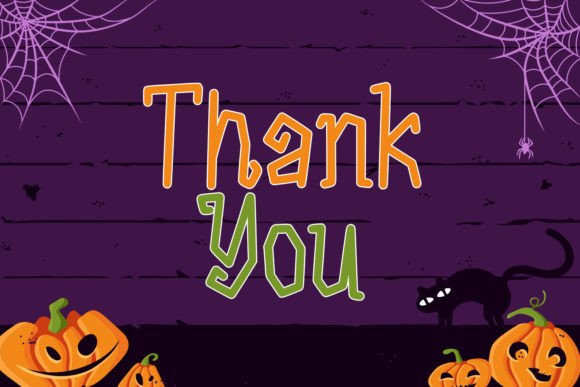
Unleash Your Spooky Creativity with Dancing Trick: A Halloween-Inspired Display Font
As the spookiest time of the year approaches, designers and crafters are on the lookout for creative elements to infuse their projects with a touch of the eerie and fantastical. If you’re looking to add a dash of Halloween magic to your cards, invitations, stickers, or posters, look no further than Dancing Trick, a captivating display font designed specifically for the season.
The Essence of Dancing Trick
Dancing Trick is more than just a font – it’s an experience. This Halloween-inspired display font is meticulously crafted to bring the essence of the spooky season to your creative projects. Its distinctive design features intricate details and an enchanting aesthetic that is sure to cast a spell on your work.
Whether you’re a professional designer working on a client’s Halloween campaign or a crafter creating spooky decorations for your home, Dancing Trick is the perfect addition to your creative toolkit. This versatile font can be used for:
• Halloween cards and invitations: Add a touch of spookiness to your greetings and invitations.
• Stickers and labels: Create eye-catching stickers and labels for your Halloween treats and decorations.
• Posters and flyers: Design attention-grabbing posters and flyers for Halloween events and parties.
• Social media graphics: Add a dash of Halloween spirit to your social media posts and stories.
What Makes Dancing Trick Special?
So, what sets Dancing Trick apart from other fonts? Here are a few features that make it a standout:
• Unique Design: Dancing Trick boasts an intricate design that is sure to capture the attention of your audience.
• Halloween Spirit: This font is designed specifically for the Halloween season, ensuring that your projects are infused with the right amount of spooky spirit.
• Eerie and Fantastical: Dancing Trick strikes the perfect balance between eerie and fantastical, making it ideal for a wide range of Halloween projects.
Tips for Using Dancing Trick
To get the most out of Dancing Trick, here are a few tips:
• Experiment with Sizes: Play around with different font sizes to create visual interest and hierarchy in your designs.
• Combine with Other Fonts: Pair Dancing Trick with other fonts to create a unique and eye-catching combination.
• Add Texture and Patterns: Add texture and patterns to your designs to give them an extra layer of depth and interest.
Font Name Dancing Trick Font
Author Typefar
If you’re looking to unleash your spooky creativity and add a touch of the eerie and fantastical to your projects, Dancing Trick is the perfect font for you. With its unique design, Halloween spirit, and versatility, this display font is sure to cast a spell on your work. So, don’t wait – get creative with Dancing Trick and make your Halloween projects unforgettable!